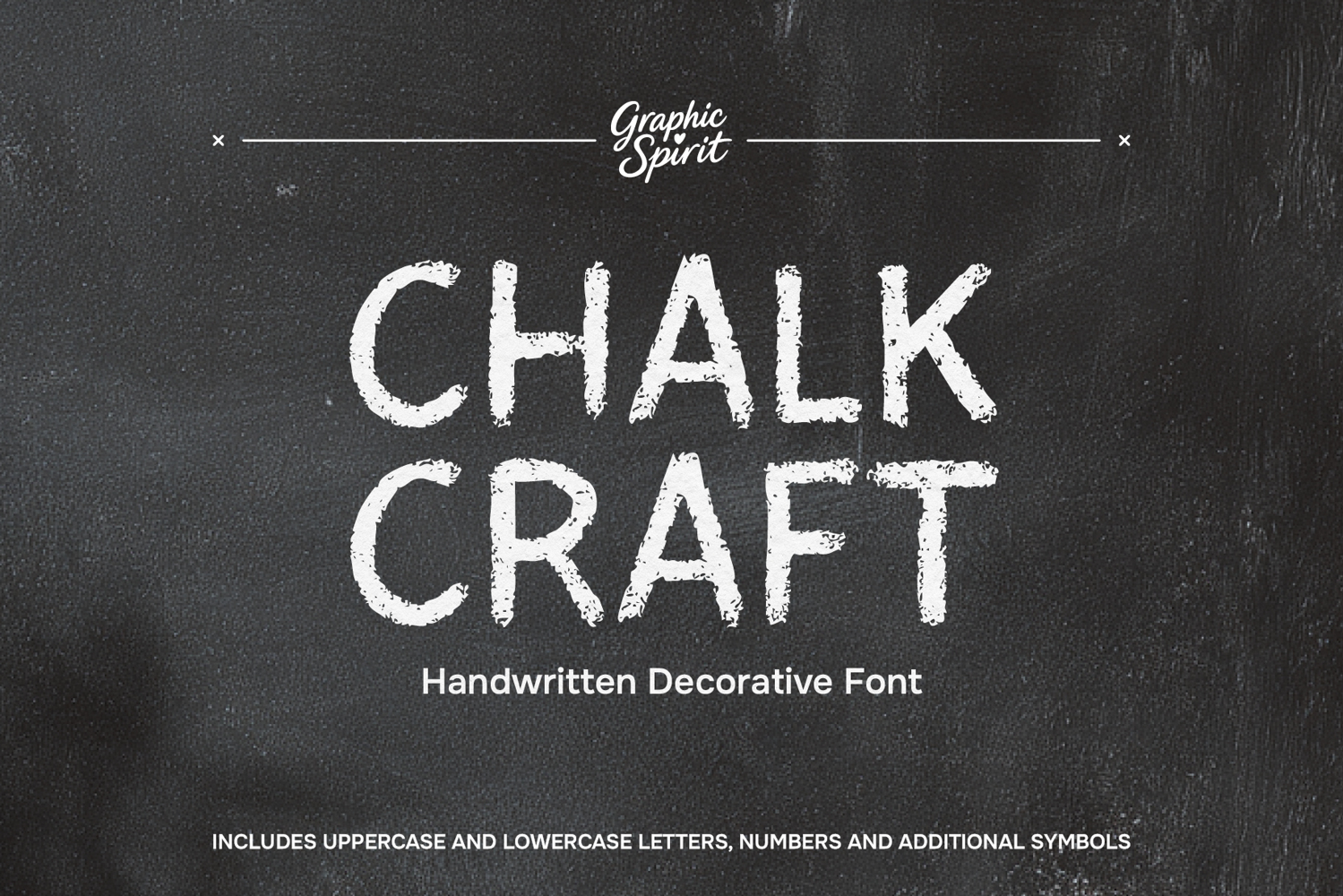
Chalk Craft Handwritten Decorative Font
🖋️ Elevate your creative projects with our Chalk Craft Handwritten font! This charming digital download delivers the authentic, whimsical feel of hand-drawn chalk lettering. Perfect for adding a warm,touch to your designs, it includes uppercase and lowercase letters, numbers, punctuation.